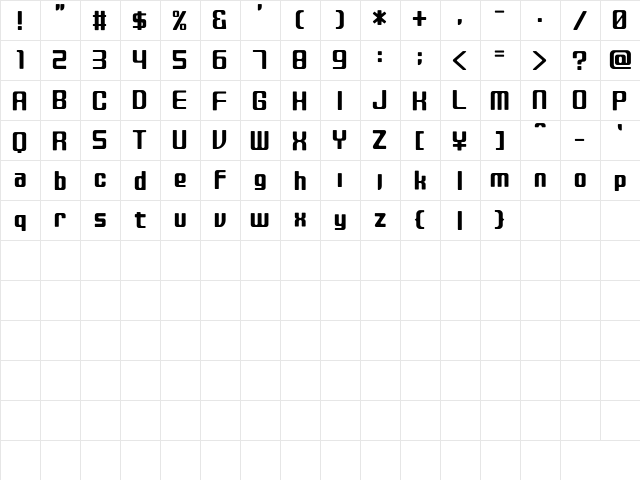
disc_black Regular
Design Context for disc_black Typeface
disc_black offers clean, dependable letterforms without strong stylistic allegiance, making it a practical choice for designers who need flexibility.